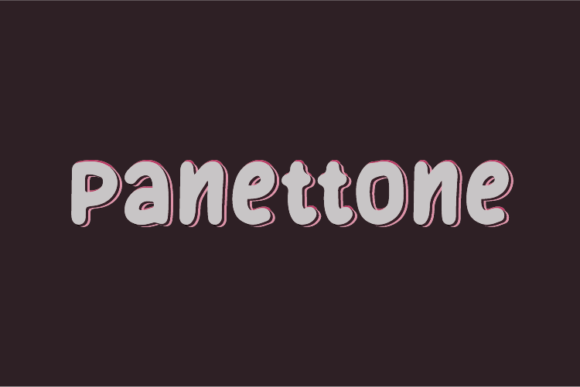
Behold Panettone, an enchanting display font family brimming with childlike wonder and whimsy. Its unique creation process, crafted without changing a single node in each character's indentation, gives birth to captivating letterforms that ignite imagination and creativity. Panettone is the perfect font companion for your enchanting designs, bringing your tales and messages to life.
Unleash your creativity and express yourself with Panettone's playful and quirky style. Its organic and natural curves invite you to create captivating quotes and memorable notes that dance off the page. Elevate your brand's visual identity with custom tees featuring Panettone's charming characters, leaving a captivating impression on your customers. Transform ordinary products into extraordinary experiences with Panettone's versatility, blending seamlessly with various design aesthetics.
Join a world where stories come alive with Panettone. Whether it's a heartfelt message, a playful invitation, or an inspiring call to action, Panettone captures the essence of your words and amplifies their impact. Its childlike innocence and boundless creativity make it the ideal choice for children's books, whimsical illustrations, and playful branding.
Immerse yourself in the magic of Panettone and let your imagination soar. Discover the joy of storytelling, the delight of self-expression, and the endless possibilities that await you within this enchanting font family. Crafted with love and inspired by the dreams of children, Panettone is your gateway to a world where creativity knows no bounds. Embrace Panettone today and embark on a journey where your ideas take flight!